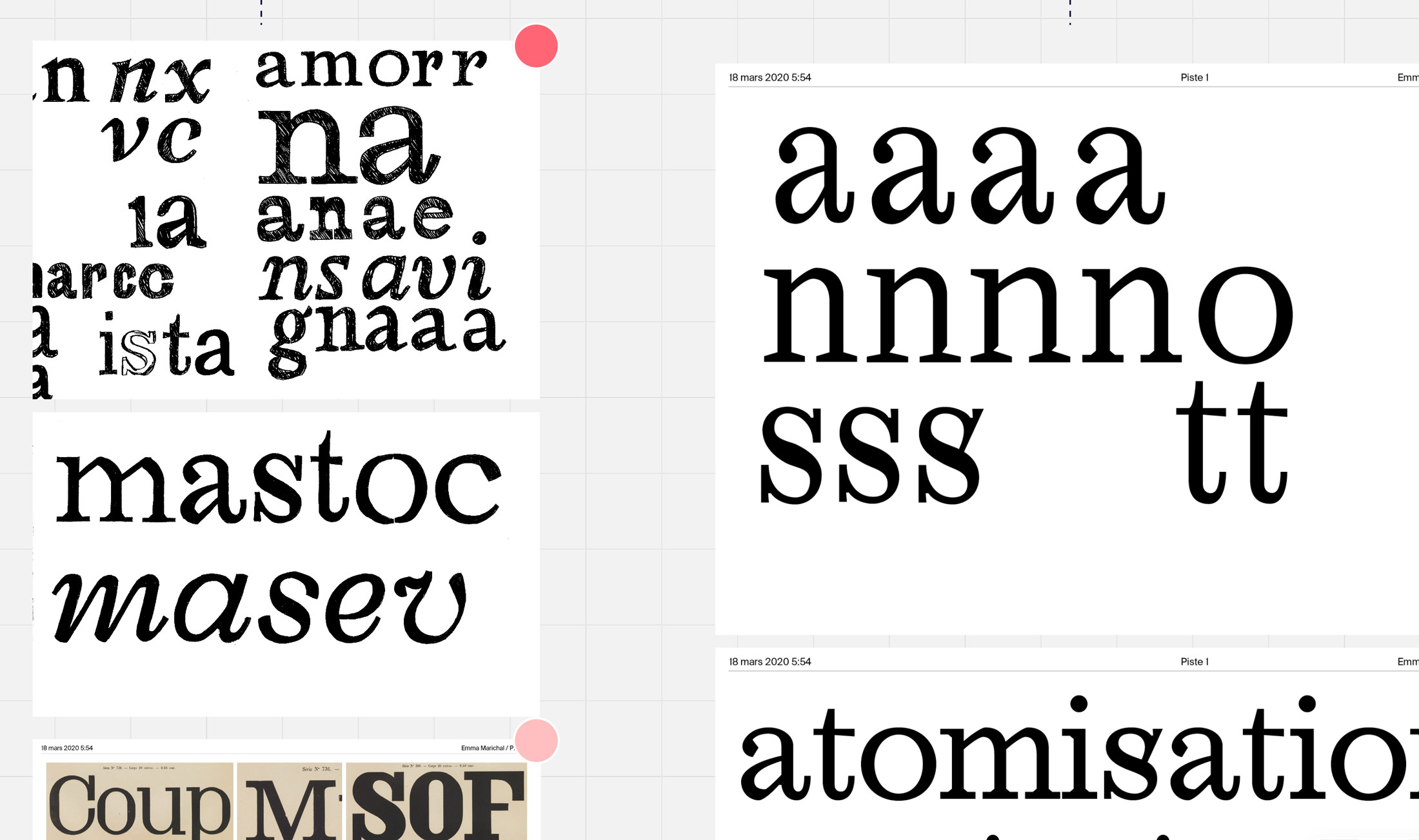
Video interview: Emma Marichal
We interviewed French national Emma Marichal after the release of her Ploquine family, discussing her work, the Gerard Unger Scholarship, and more.
We introduced you to Emma Marichal in 2022 when she won the Gerard Unger Scholarship for her Ploquine typeface. After months of work to expand the family and perfect the variable fonts, we have just released it and hope you also appreciate the same expressive joy and usefulness we found in it. This video interview covers a bit of Emma’s history, her process, her thoughts on the Gerard Unger Scholarship, and her hopes for the Ploquine family.
Ploquine is a slab serif of structured delicacy, able to set context with subtlety or be stylistically captivating. Designed for editorial use from wood types, the family can be aggressive or delicate. Its 14 well-balanced styles are suitable for paragraphs where its details improve the overall text color, and those details become a distinctive branding feature when Ploquine is set at large sizes. Her experimentation and research produced a typeface with calm-fidence in every style.